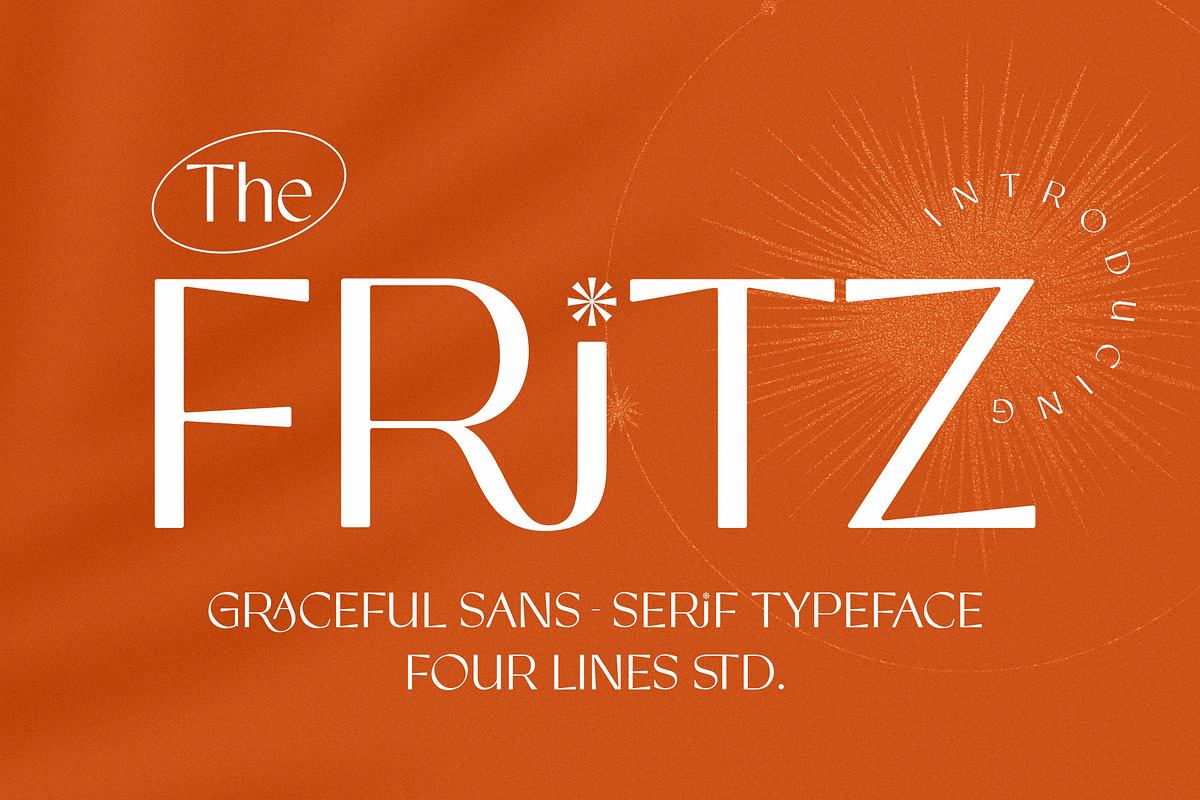
50% Fritz – Sans Serif Font Free Download
Fritz – Sans Serif Font Free Download is a bold, quirky, and ultra-modern typeface with a unique personality and strong visual presence. Please note: you must purchase this font for commercial use, but you can test it through a free download. With its geometric structure, clean lines, and slightly offbeat style, 50% Fritz is perfect for branding, posters, editorial layouts, packaging, and tech-forward design projects.
This font blends minimalism with playful energy, making it ideal for designers who want to create something fresh, bold, and unmistakably original. Whether you're crafting a contemporary logo or eye-catching headlines, Fritz – Sans Serif Font Free Download delivers clarity with character. Fully compatible with Adobe Illustrator, Photoshop, Canva, and more. Download it today for personal use and bring a smart, stylish edge to your typography with 50% Fritz.